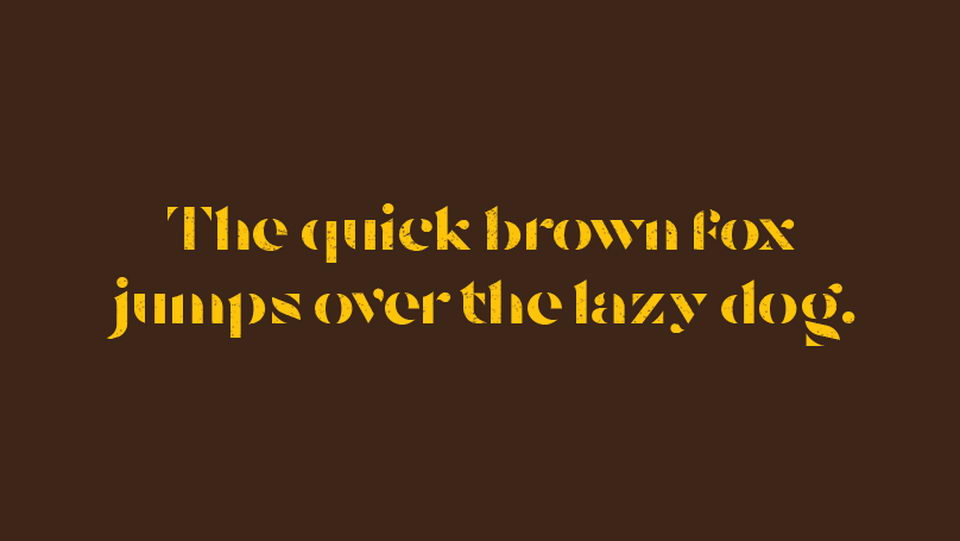
Tostada Font
Tostada is a free bold stencil serif typeface. It comes in Regular and Italic styles, contains uppercase and lowercase letters, numerals and symbols. Tostada looks great for headlines and covers, fashion, apparel and other creative designs.
• Name: Tostada
• Author: Iván Núñez